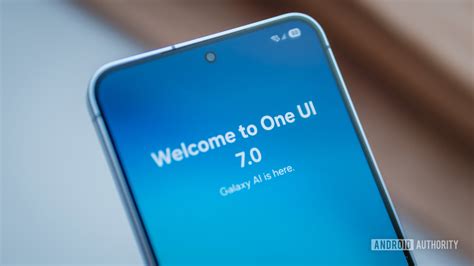
Samsung One UI 7 Fonts: Customize Your Experience
Hey there, tech enthusiasts! Let’s dive deep into the cool world of Samsung One UI 7 fonts . You know, that sleek interface on your Samsung devices? Well, customizing the fonts is one of the easiest yet most impactful ways to make your phone truly yours. We’re talking about changing the way everything looks, from your text messages to your app icons. And with One UI 7 on the horizon, we can expect even more awesome font options and customization features. So, if you’re someone who loves to tinker with their device’s appearance, or if you’re just curious about how to spice things up, you’ve come to the right place, guys! We’ll be exploring everything from where to find new fonts to how to apply them, and what to expect from the future of Samsung’s font game. Get ready to give your Samsung device a fresh new look!
Exploring Samsung One UI 7 Font Options
So, what’s the deal with Samsung One UI 7 fonts ? Well, Samsung has always been pretty good at letting us personalize our devices, and fonts are a big part of that. Think about it – every time you glance at your phone, you’re seeing text. Changing the font can completely alter the vibe of your entire user experience. We’re not just talking about a few different styles here; we’re talking about the potential to inject your personality into every swipe and tap. One UI 7 , being the latest iteration, is expected to build upon the already robust font customization options. This means you can anticipate a wider variety of pre-installed fonts, more intuitive ways to download and manage fonts from the Galaxy Store, and perhaps even some advanced settings for finer control over font size, weight, and spacing. Imagine choosing a font that’s super minimalist for a clean, distraction-free experience, or a bold, playful font that screams fun and personality. The possibilities are genuinely endless, and Samsung is empowering you to make those choices. We’ll get into the nitty-gritty of how to actually change these fonts in a bit, but first, let’s appreciate the sheer potential that lies within the font settings of your Samsung device. It’s more than just aesthetics; it’s about readability, accessibility, and creating a digital environment that feels comfortable and visually appealing to you . So, when One UI 7 drops, get ready to explore a whole new landscape of typographic possibilities that will make your Samsung phone stand out from the crowd.
The Future of Fonts in One UI 7
Now, let’s talk about the crystal ball for Samsung One UI 7 fonts . While Samsung hasn’t spilled all the beans yet, we can make some pretty educated guesses based on their track record and the general direction of mobile UI development. One major area of improvement we might see is enhanced font accessibility . This means offering more robust options for users with visual impairments, such as higher contrast styles, adjustable font weights for better readability, and perhaps even integration with system-wide accessibility features for dynamic type scaling. Think about how much more inclusive and user-friendly the device becomes when font choices cater to everyone. Another exciting possibility is more dynamic font features . Imagine fonts that subtly change their appearance based on the time of day, or perhaps integrate animations for notifications or headlines. While this might sound a bit flashy, it could add a unique layer of personalization and engagement to the user experience. We’re also hoping for improved font rendering and compatibility . Sometimes, certain fonts don’t display perfectly across all apps. One UI 7 could bring better optimization to ensure that your chosen font looks crisp and consistent everywhere, from your messaging app to your web browser. And let’s not forget about AI integration . Could AI help us choose the perfect font? Perhaps by analyzing our usage patterns or suggesting fonts based on our preferences. It’s a wild thought, but not entirely out of the realm of possibility in the AI-driven world we’re heading into. Ultimately, the future of Samsung One UI 7 fonts is all about giving you more control, more options, and a more personalized and accessible experience. We’re pretty stoked to see what Samsung cooks up!
Accessibility and Font Choices
When we talk about Samsung One UI 7 fonts , accessibility is a super important aspect that Samsung is likely to focus on, and rightly so. Your phone is your daily companion, and everyone should be able to use it comfortably and effectively, regardless of their visual abilities. We’re talking about features like dynamic font sizing , which allows the system to scale font sizes not just within the settings menu, but across all apps seamlessly. This means if you need larger text for better visibility, it’s not just a cosmetic change; it’s a functional enhancement. Furthermore, expect more high-contrast font options . These fonts are designed with distinct differences between the characters and their backgrounds, making text significantly easier to read for people with low vision or color blindness. Samsung could also introduce font styles specifically optimized for dyslexia , which often involve unique letter shapes and spacing to improve readability for individuals with this condition. The goal here is to ensure that no matter your visual needs, you can find a font that makes reading and interacting with your device a pleasure, not a pain. It’s about making technology more inclusive. So, as you explore the font options in One UI 7, keep an eye out for these accessibility-focused features. They aren’t just about making your phone look pretty; they’re about making it work better for you . Samsung’s commitment to accessibility is growing, and we anticipate that font customization will be a key part of that in One UI 7, empowering all users to tailor their visual experience.
Customization Beyond Basic Fonts
Beyond just picking a font style, Samsung One UI 7 fonts might offer deeper customization, which is pretty exciting, guys! Think about adjusting the font weight . Currently, you can usually choose between normal and bold, but imagine having a slider to make your text anywhere from ultra-light to extra-bold. This level of control can be a game-changer for both aesthetics and readability. You could make headings bolder and more prominent, or make body text lighter for a softer look. Another area for potential enhancement is letter spacing (kerning) and line spacing (leading) . Fine-tuning these can dramatically affect how text flows and how easy it is to read large blocks of content. For example, increasing line spacing can make long articles much more comfortable to read on a smaller screen. Samsung could also explore font scaling beyond simple percentages . Perhaps allowing users to set different font scales for different contexts – like system-wide for accessibility, but slightly smaller for specific apps where space is limited. And who knows, maybe we’ll see custom font icon packs ? While this is more speculative, imagine being able to apply a font’s style to the icons on your home screen for a truly cohesive look. The core idea is that Samsung is likely looking to move beyond just offering a palette of pre-made fonts and is aiming to give users the tools to sculpt their typographic experience precisely to their liking. One UI 7 could be the version where we see these more granular and powerful customization options roll out, giving you unprecedented control over how your Samsung device looks and feels.
Tips for Choosing the Right Font
Choosing the perfect Samsung One UI 7 font can feel a bit overwhelming with so many choices. But don’t worry, guys, I’ve got some solid tips to help you nail it. First off, consider readability . This is paramount. No matter how cool a font looks, if you can’t easily read your notifications or messages, it’s a fail. Stick to fonts that have clear, distinct characters. Avoid overly stylized or condensed fonts for everyday use. Your eyes will thank you later! Secondly, think about the aesthetic you’re going for . Are you aiming for a professional, minimalist look? Then clean sans-serif fonts are your best bet. Want something more elegant and classic? Serif fonts might be your jam. Or maybe you just want something fun and quirky for a personal touch. Match the font to your personality and how you want your phone to feel. Experimentation is key , so don’t be afraid to try a few different ones. Download a couple that catch your eye and see how they look in different apps – your home screen, your messaging app, your browser. See which one feels right. Pay attention to how the font renders at different sizes. Some fonts look great large but become messy when shrunk down. Check out previews in the Galaxy Store carefully. Also, consider system-wide consistency . While you can download custom fonts, ensure they look good everywhere . A font that looks amazing in one app but bizarre in another can ruin the experience. One UI 7 will hopefully make this consistency even better. Finally, remember it’s your phone. If you find a font that’s a bit unconventional but you absolutely love it and it doesn’t impede your usability, then go for it! It’s all about making your device a reflection of you. So, dive in, explore, and find that perfect font that makes you smile every time you pick up your phone.
Font Pairing and Harmony
When customizing with Samsung One UI 7 fonts , thinking about font pairing might seem a bit advanced, but it can seriously elevate your phone’s look. The idea is to create harmony, not chaos, with your typography. While One UI might not offer extensive multi-font customization within a single screen (like setting different fonts for headings and body text simultaneously), you can still apply this principle mentally when choosing your primary font. Consider the font’s personality . Is it bold and modern, or delicate and traditional? Try to choose a font that reflects the overall vibe you want for your device. If you pick a very playful font, maybe avoid pairing it mentally with a super serious-looking app. The harmony comes from selecting a font that feels consistent with the type of content you interact with most. For example, if you’re a voracious reader, a font with excellent readability for long passages is crucial, and you’d mentally